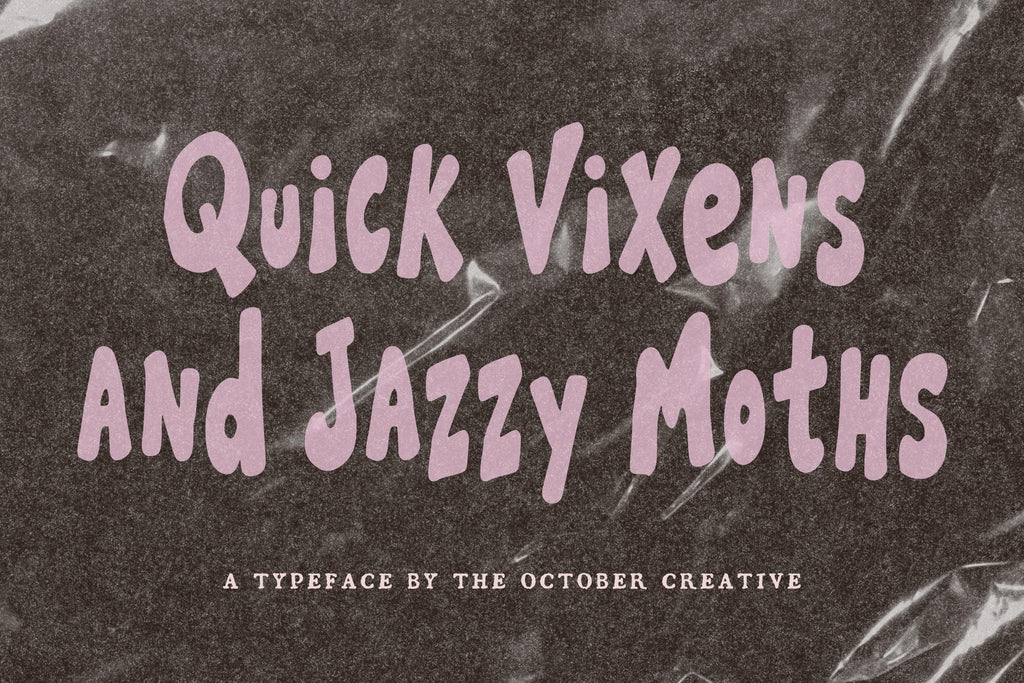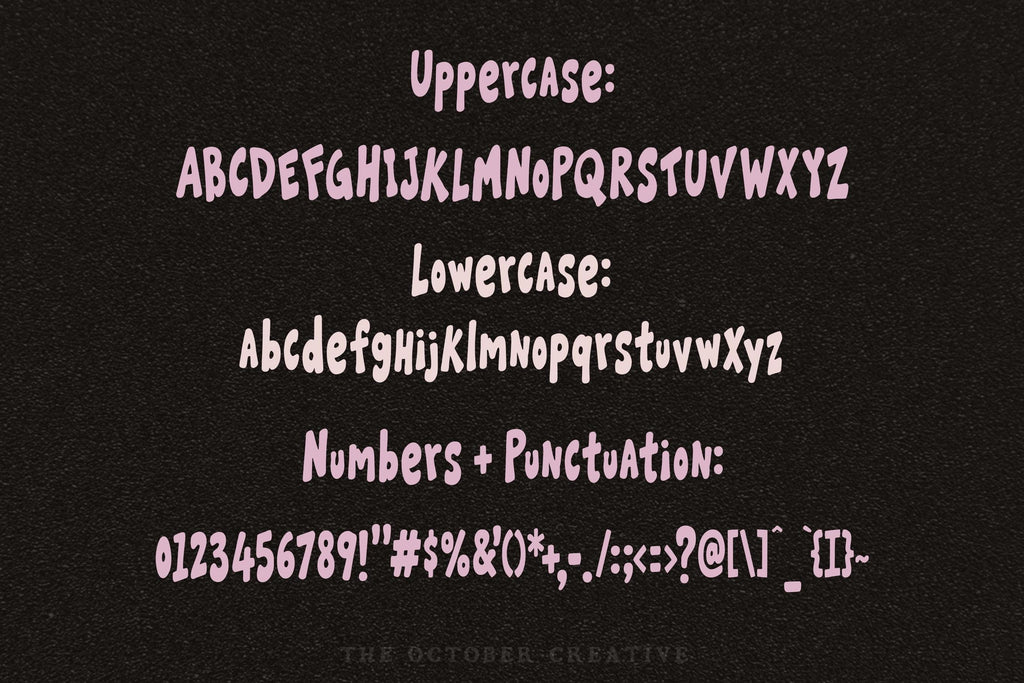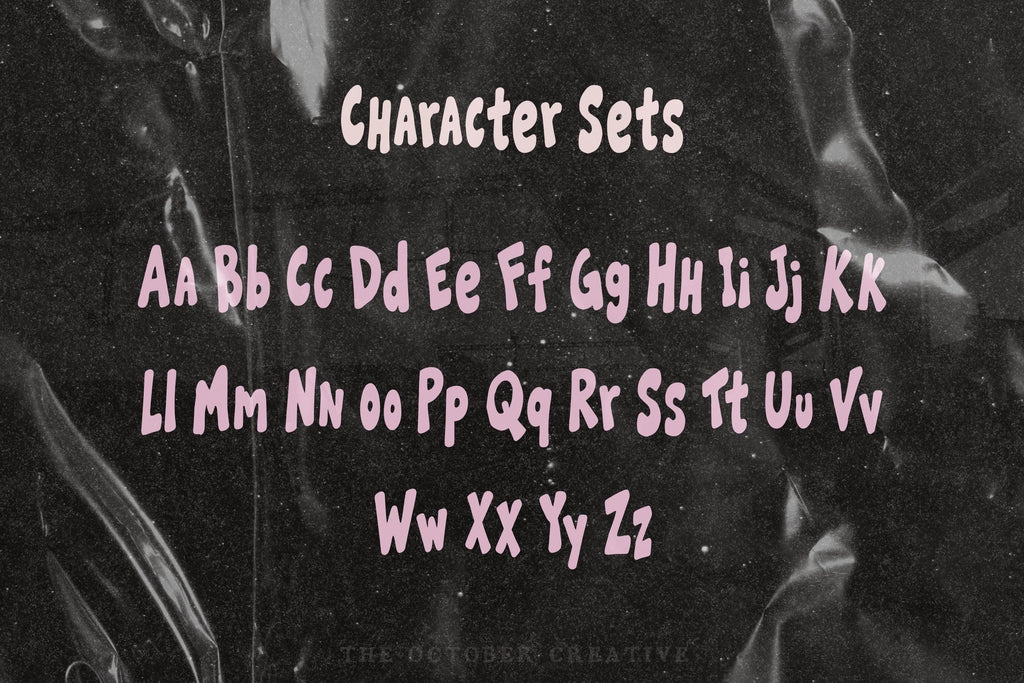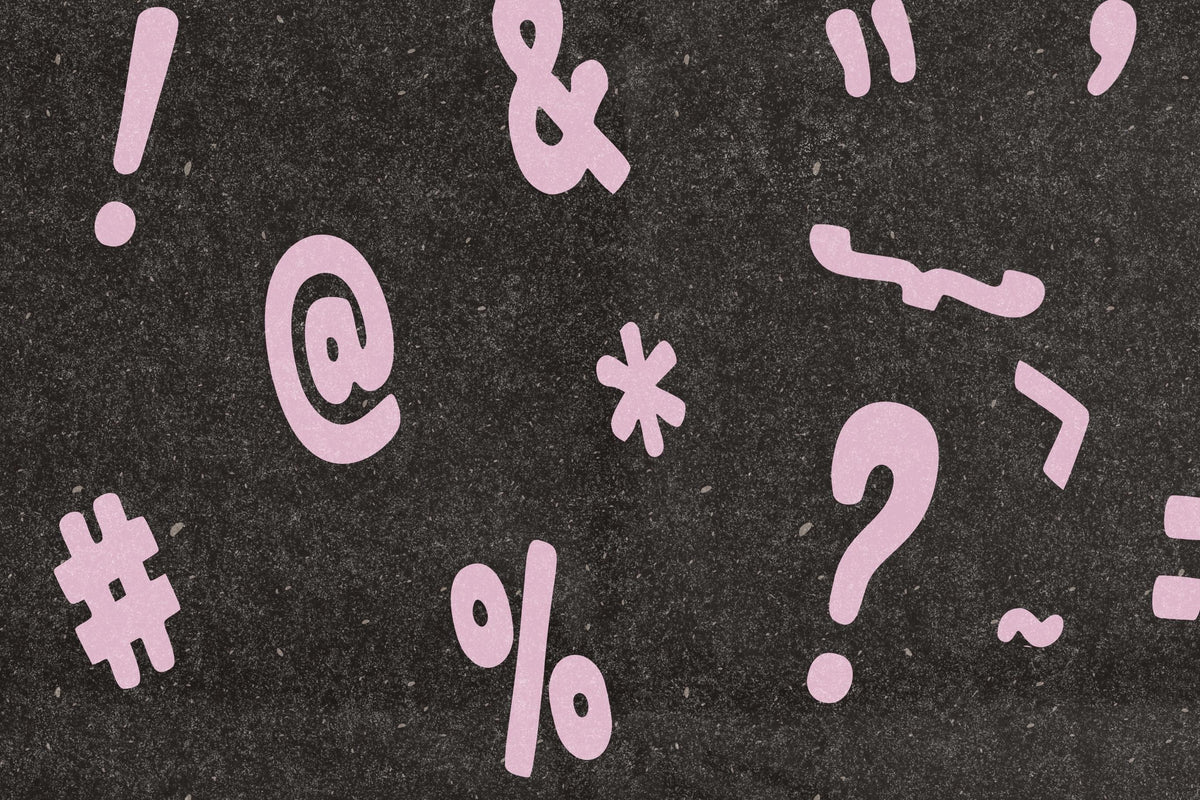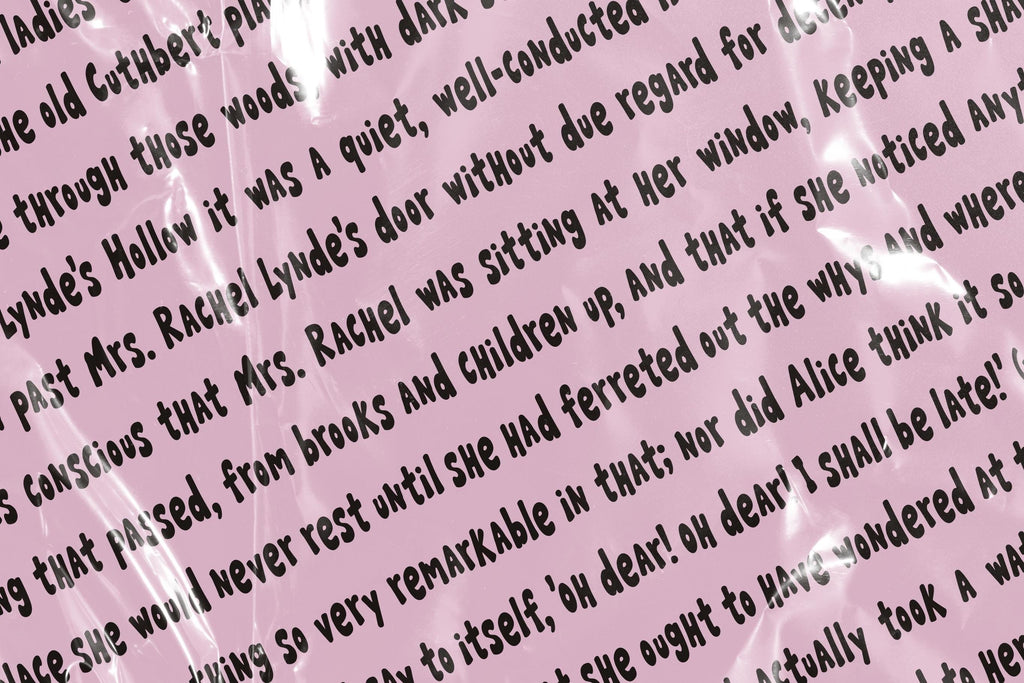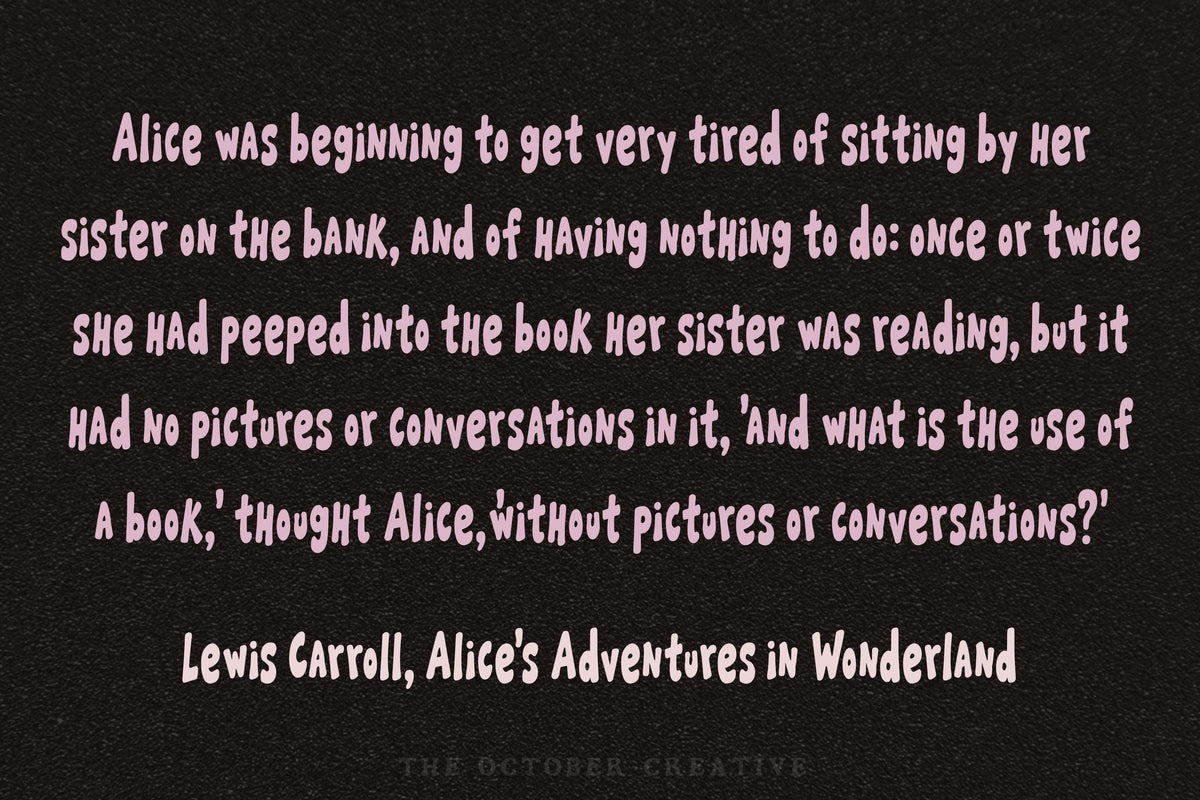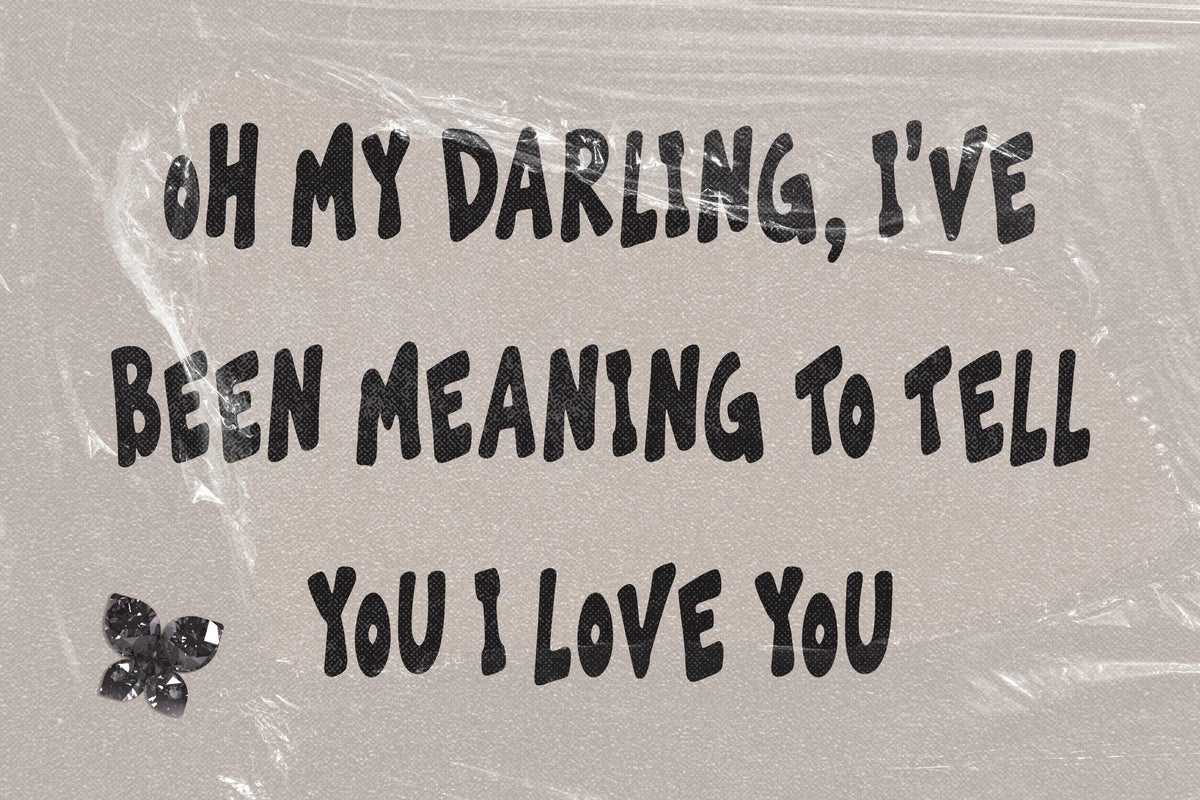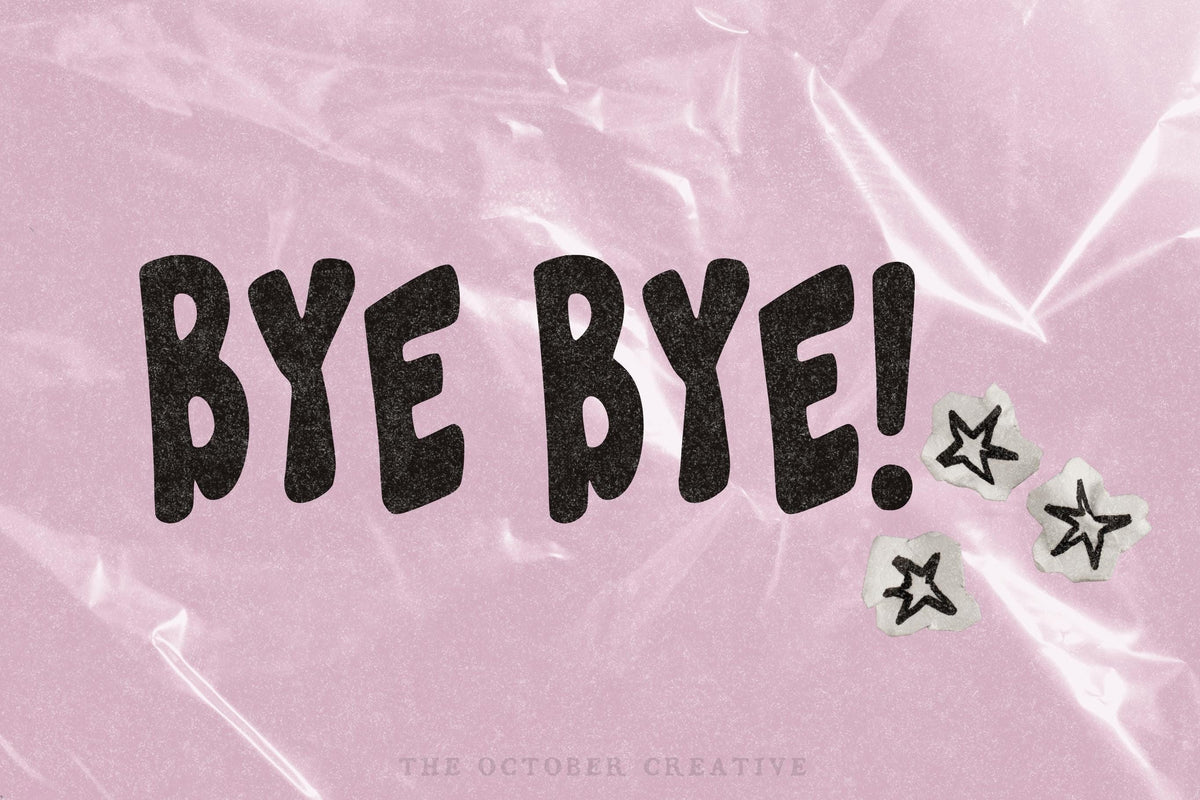
Quick Vixens and Jazzy Moths Font
Quick Vixens and Jazzy Moths is a bold marker font with condensed capitals and lowercase that lean and bounce a little. Use it for zine headlines, posters, sticker text, and social media graphics.